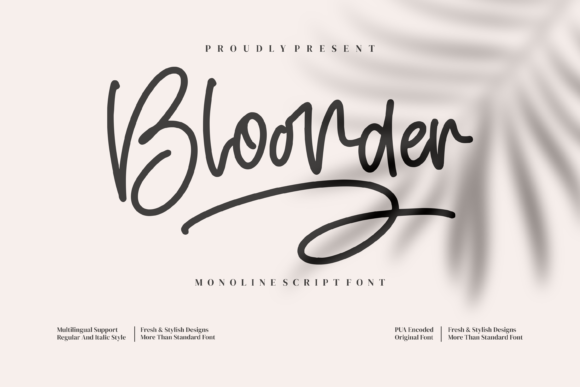
Bloonder is a stylish and elegant script font. Fall for its ravishing style and use it to create gorgeous wedding invitations, beautiful stationary art, eye-catching social media posts, and much more!
About: Bloonder Font